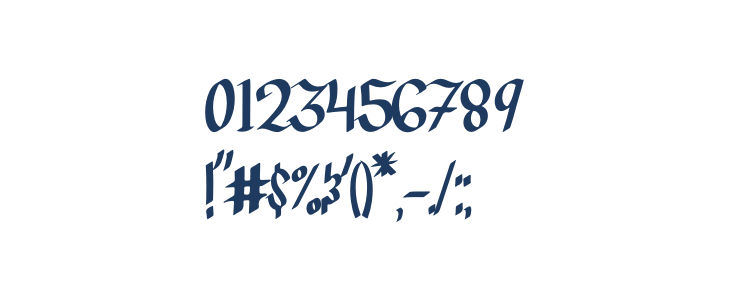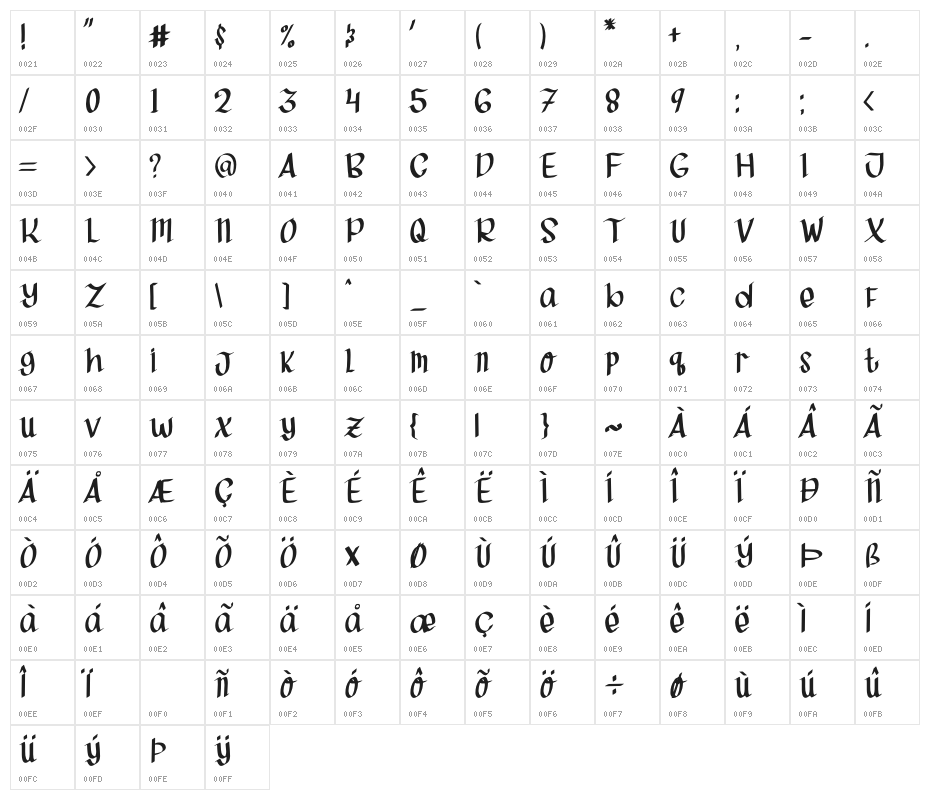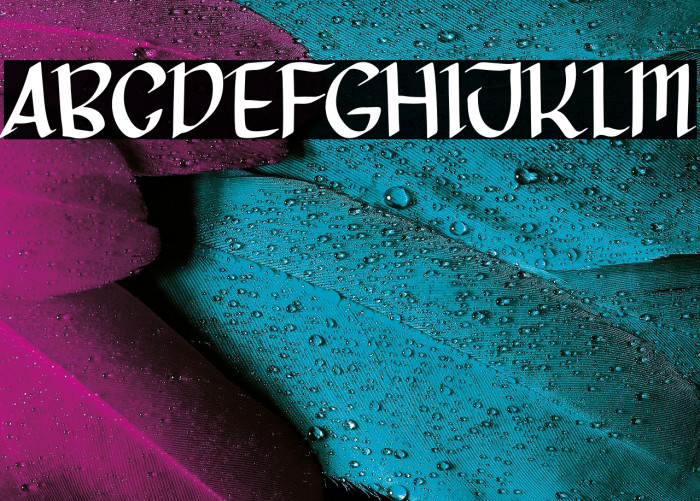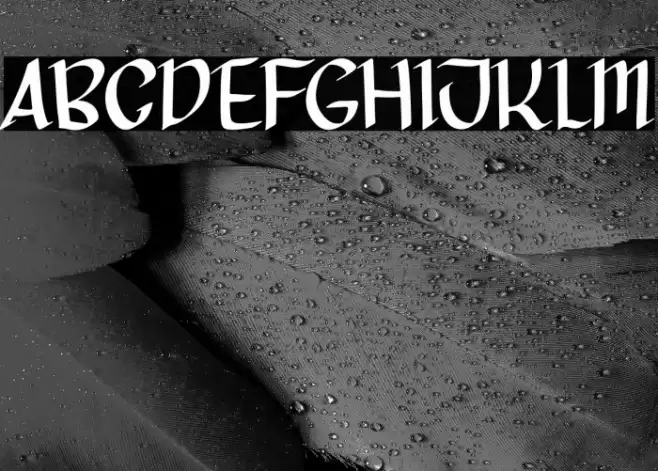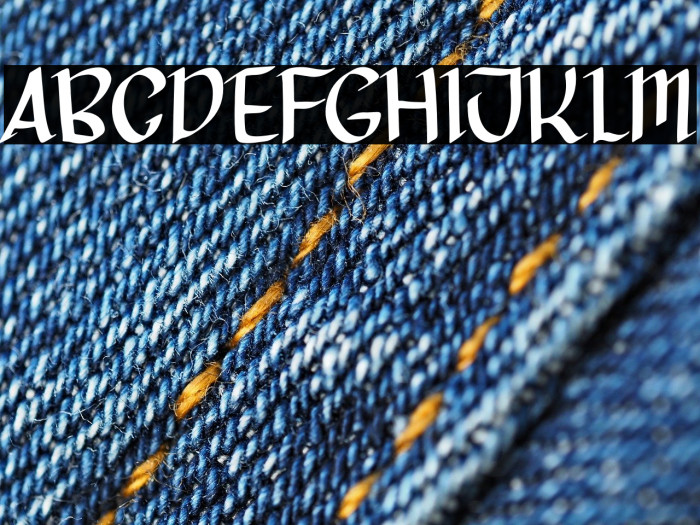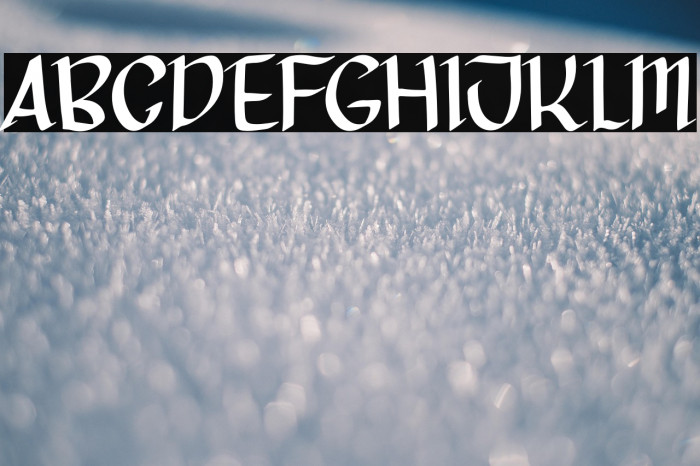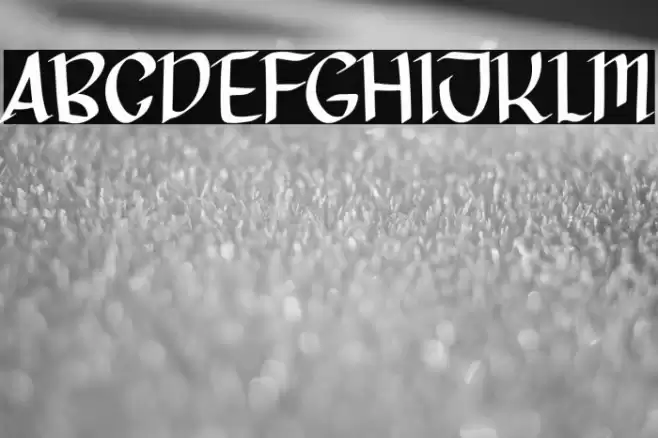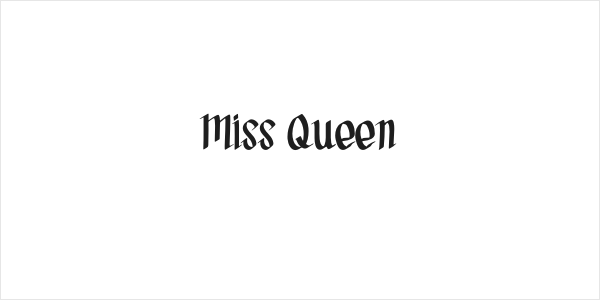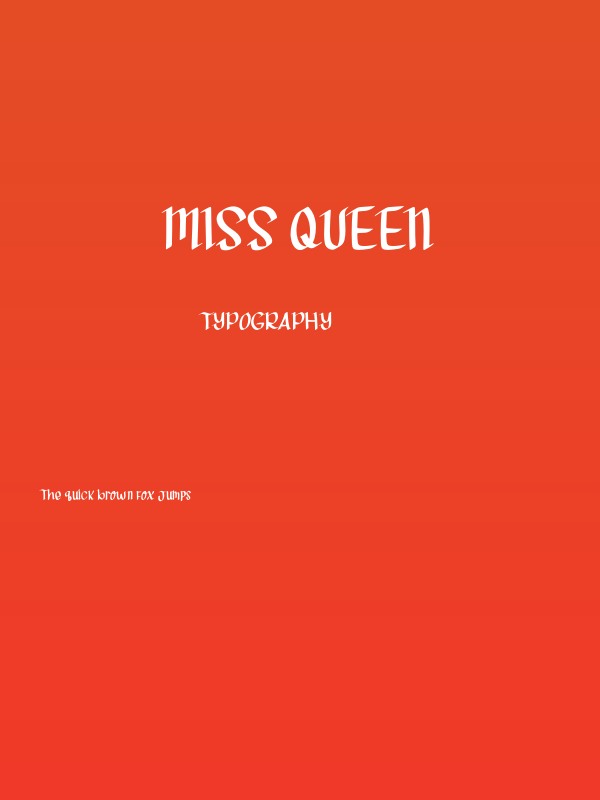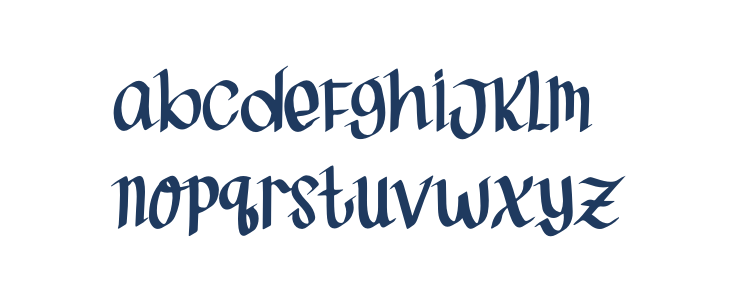
Miss Queen Font
Miss Queen Description
This font features a bold and dynamic script style with a hand-drawn appearance. The letters are characterized by their fluid, sweeping strokes and slightly uneven edges, giving them a lively and energetic feel. The uppercase letters are particularly striking, with exaggerated curves and a sense of movement. The lowercase letters maintain this dynamic quality, with a consistent flow that connects each character. The numerals and special characters are equally expressive, maintaining the overall aesthetic of the font. This font's unique style makes it stand out, offering a blend of elegance and playfulness.
| Proposed Projects | Ideal for branding, invitations, posters, and creative projects that require a lively and expressive touch. |